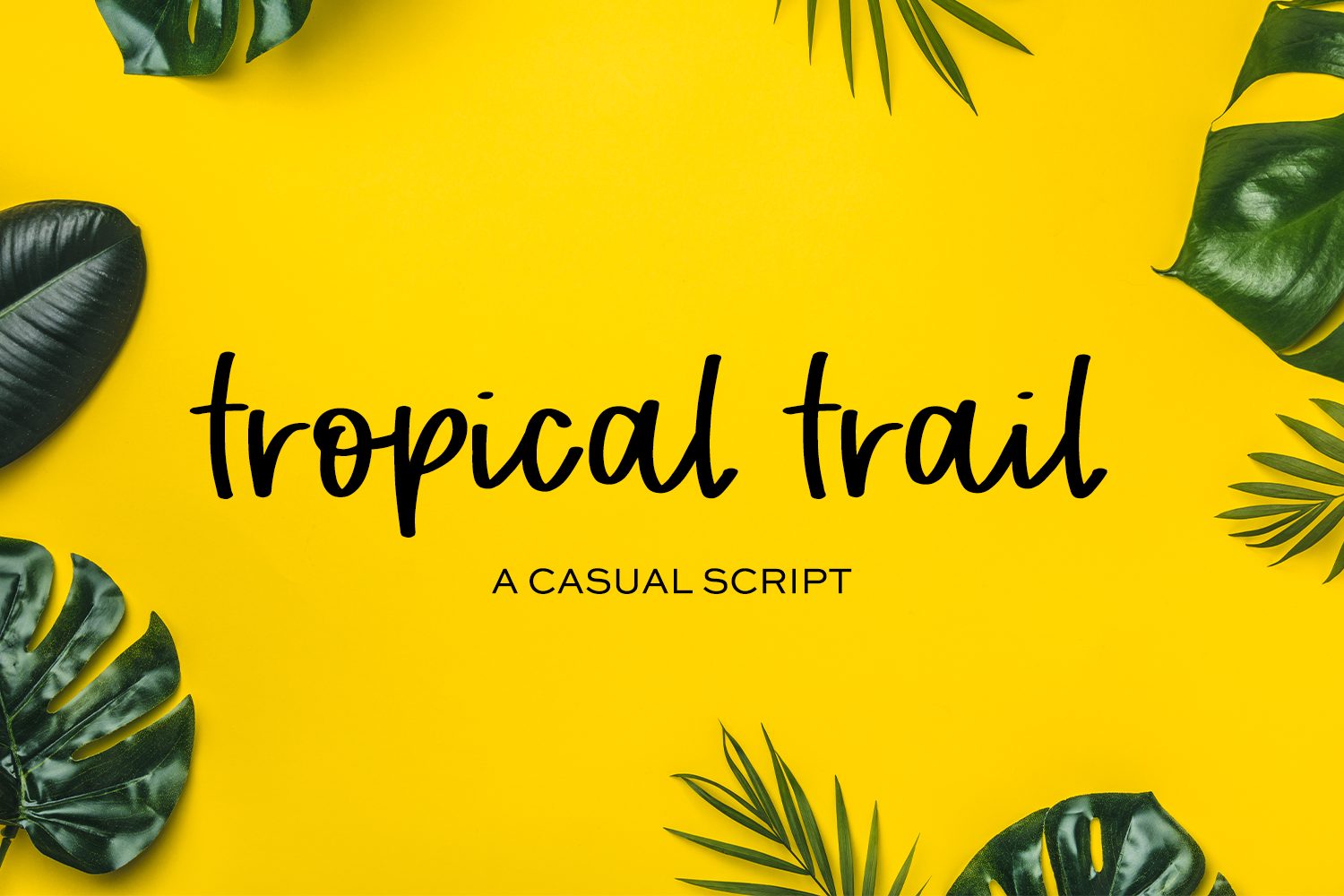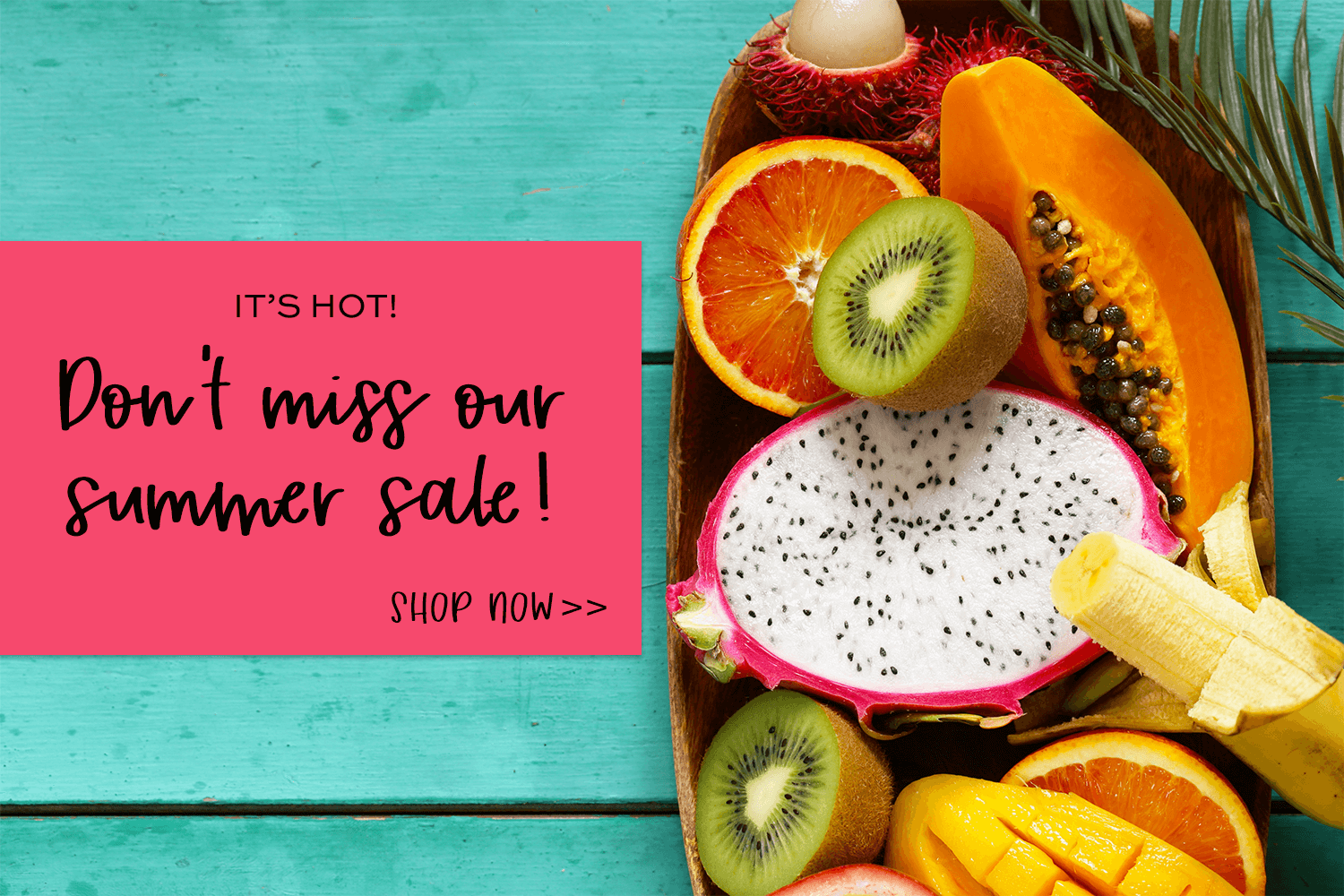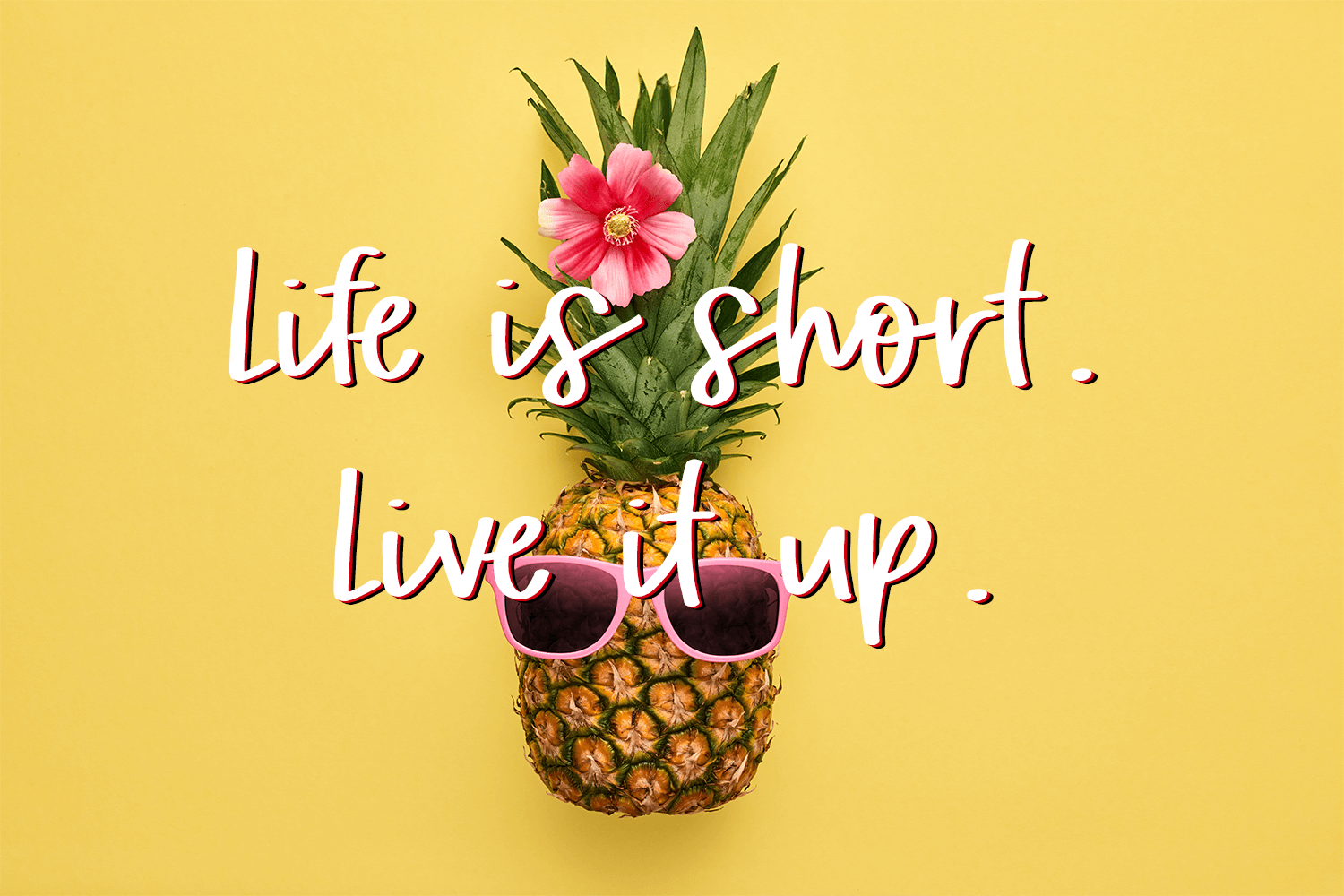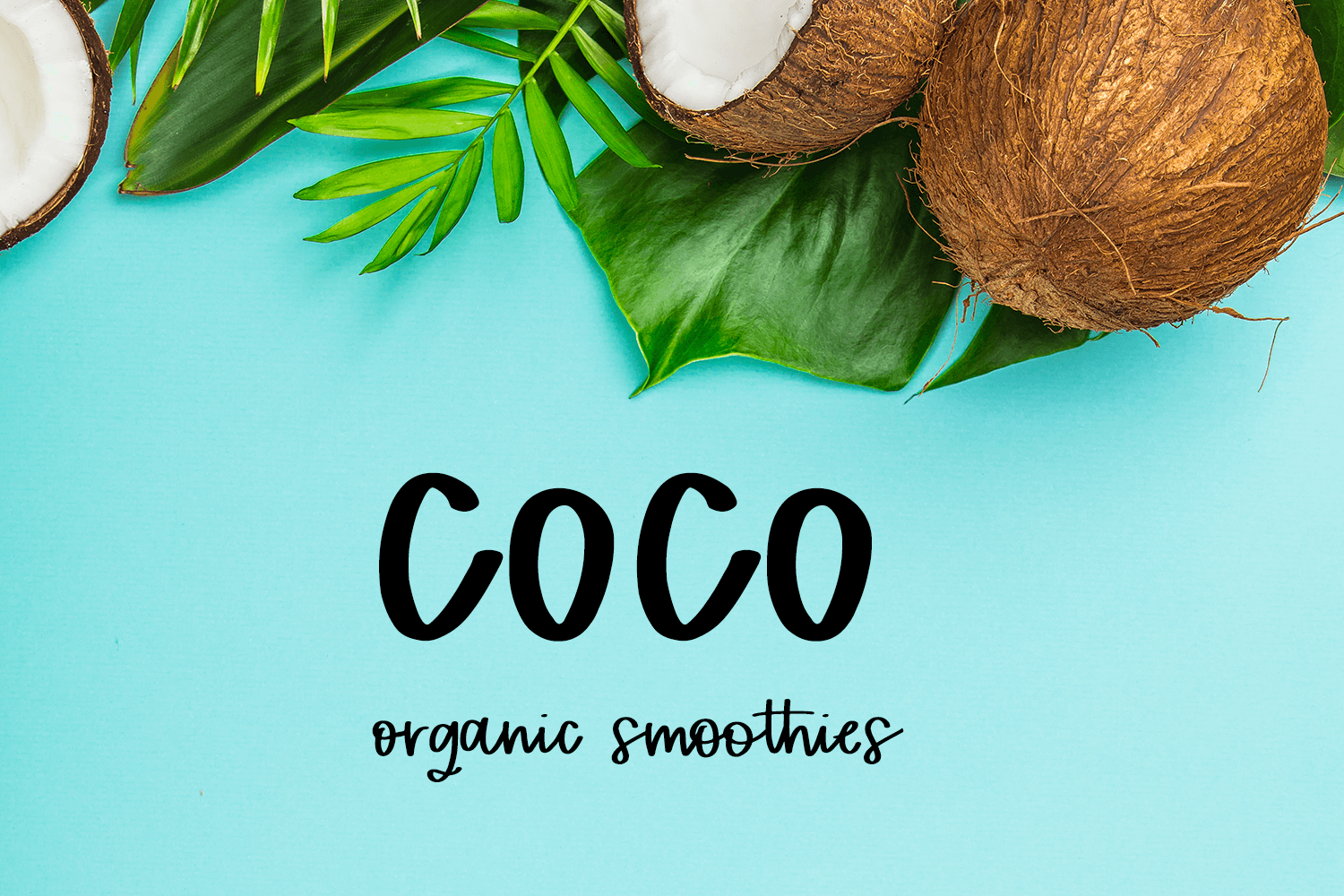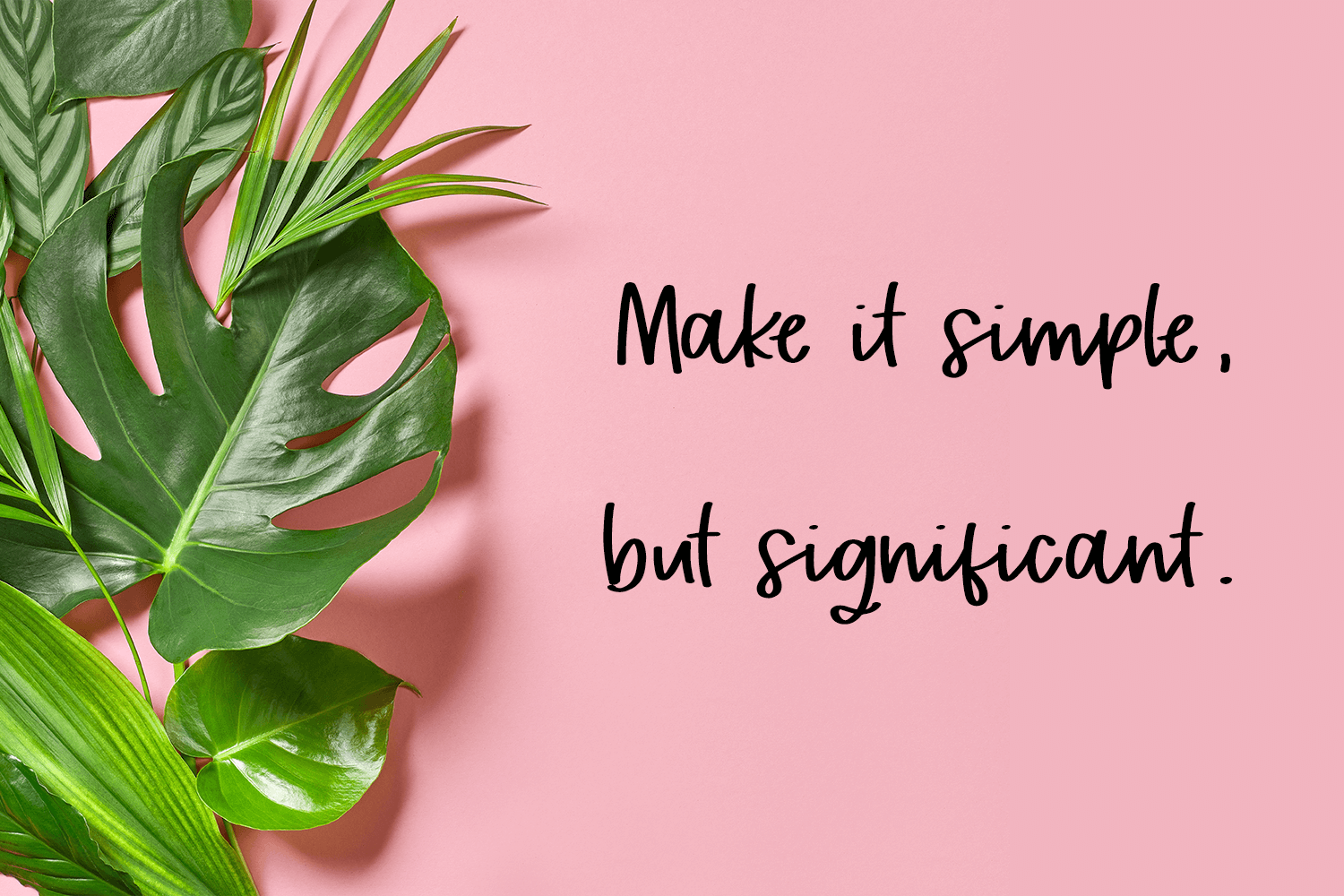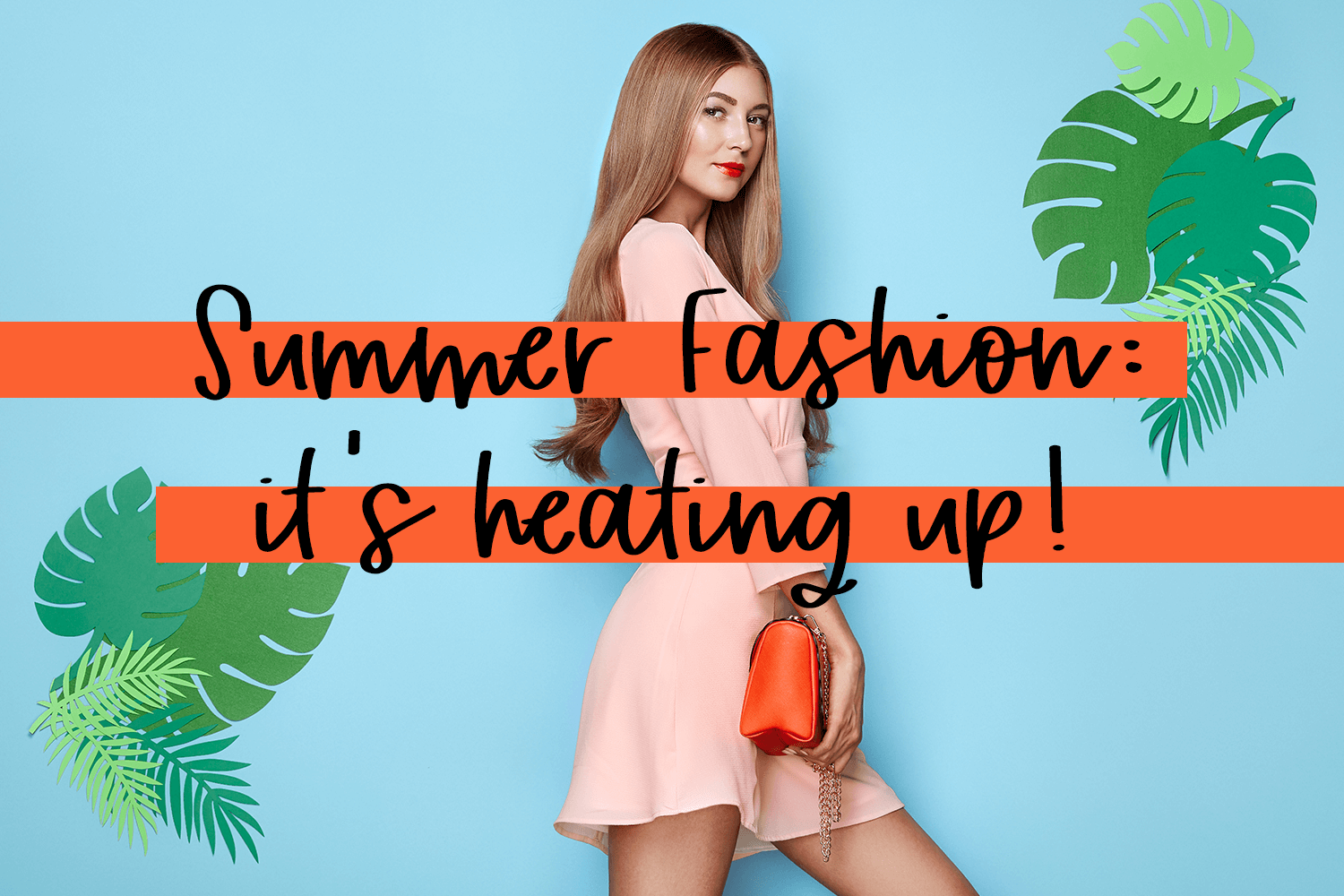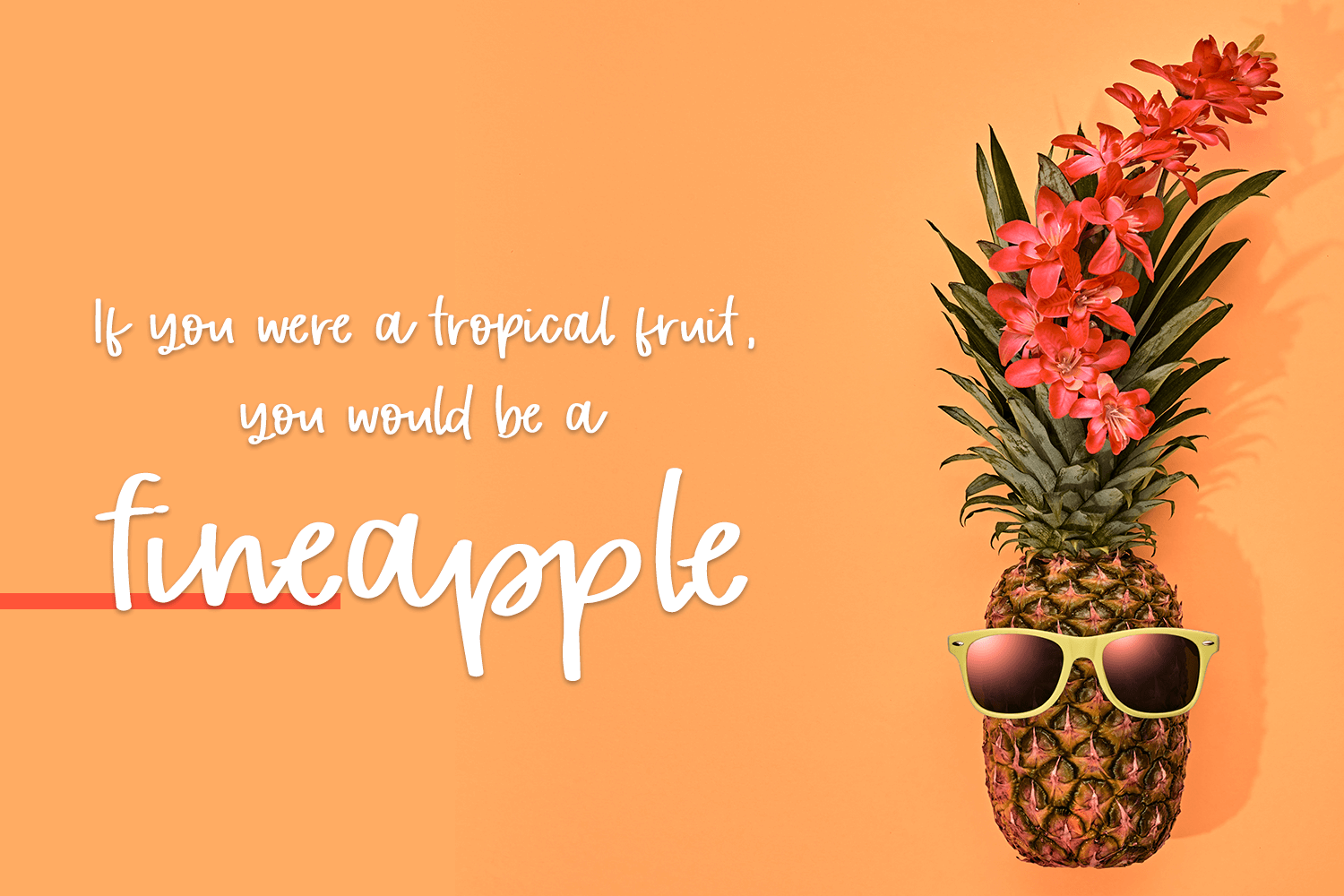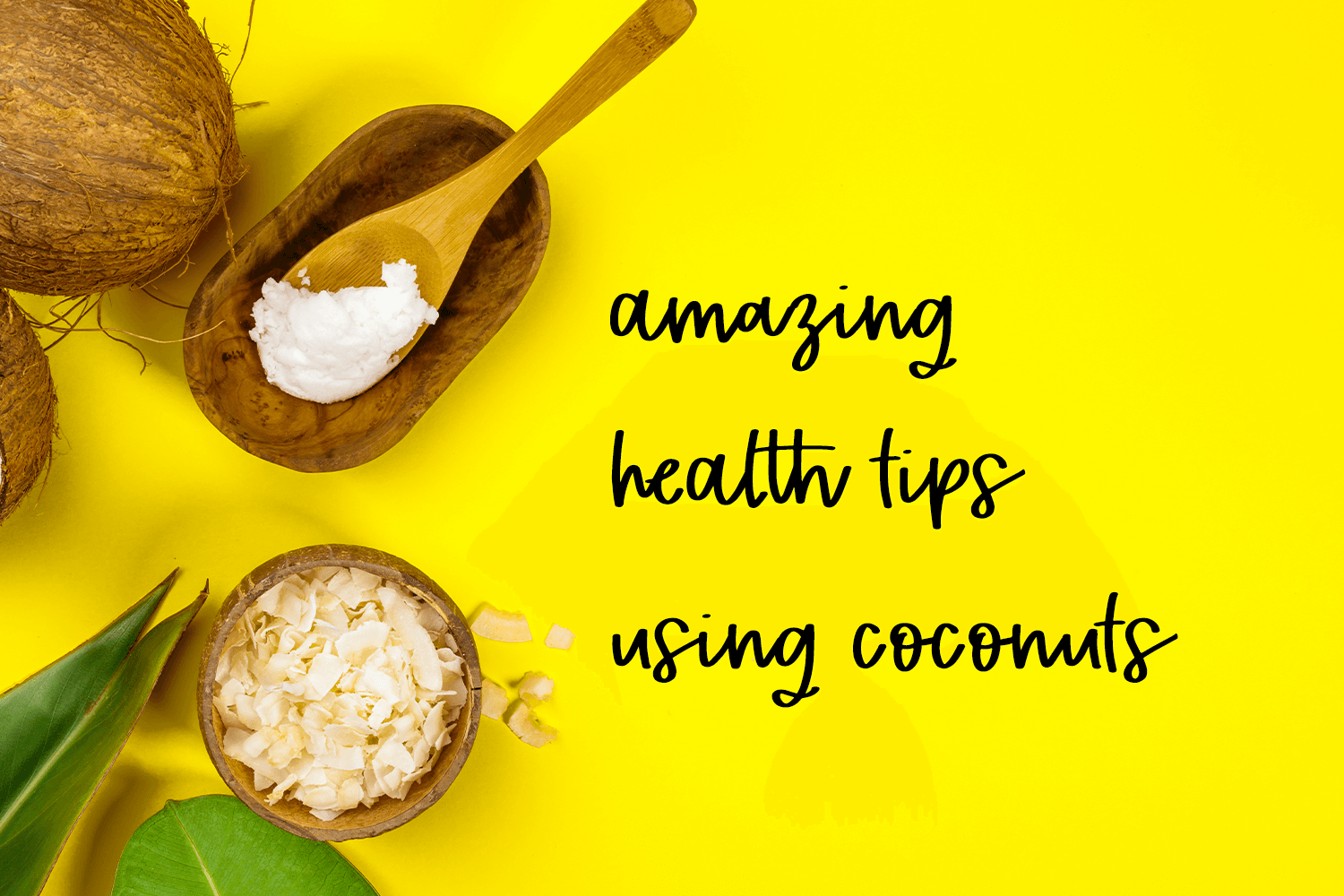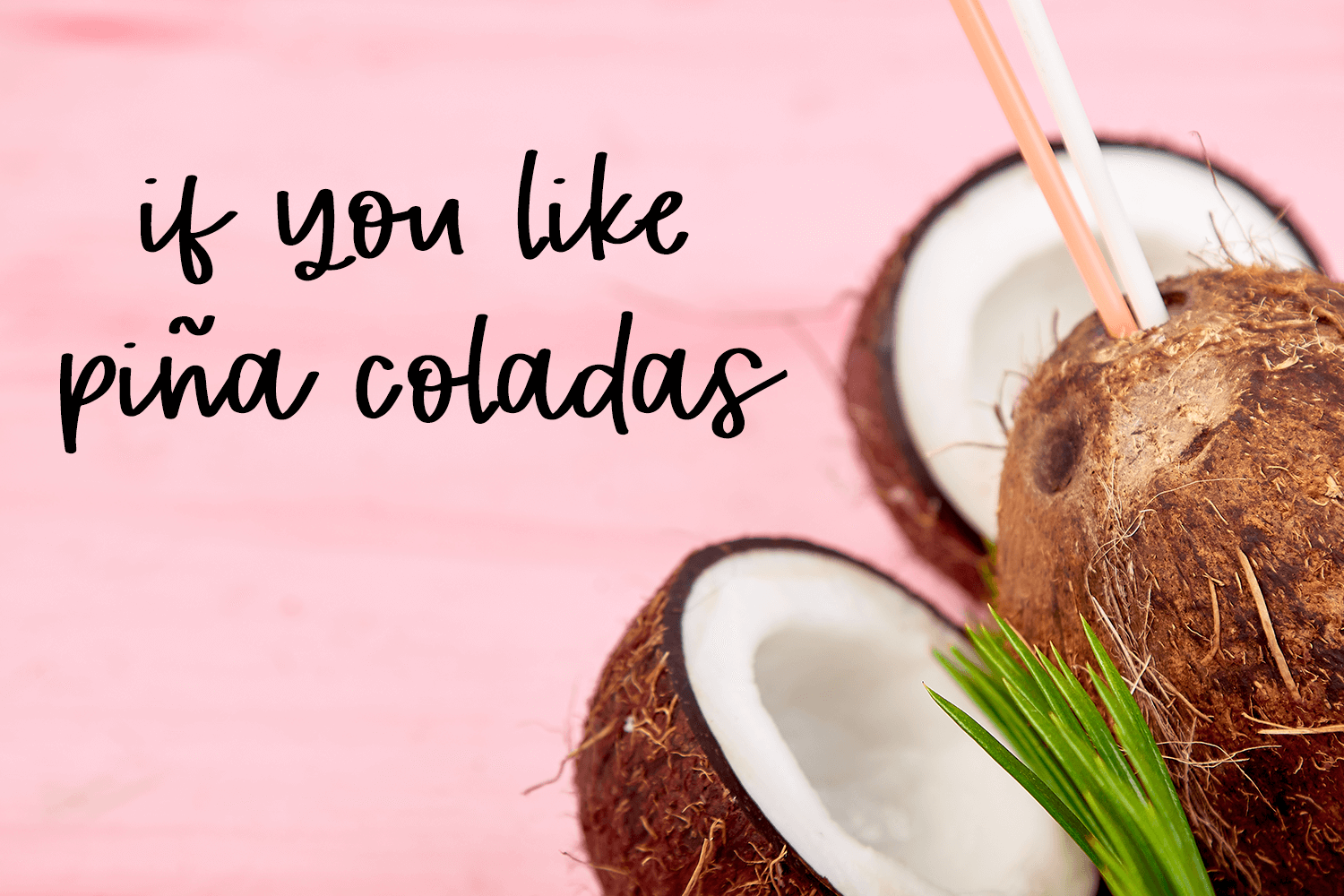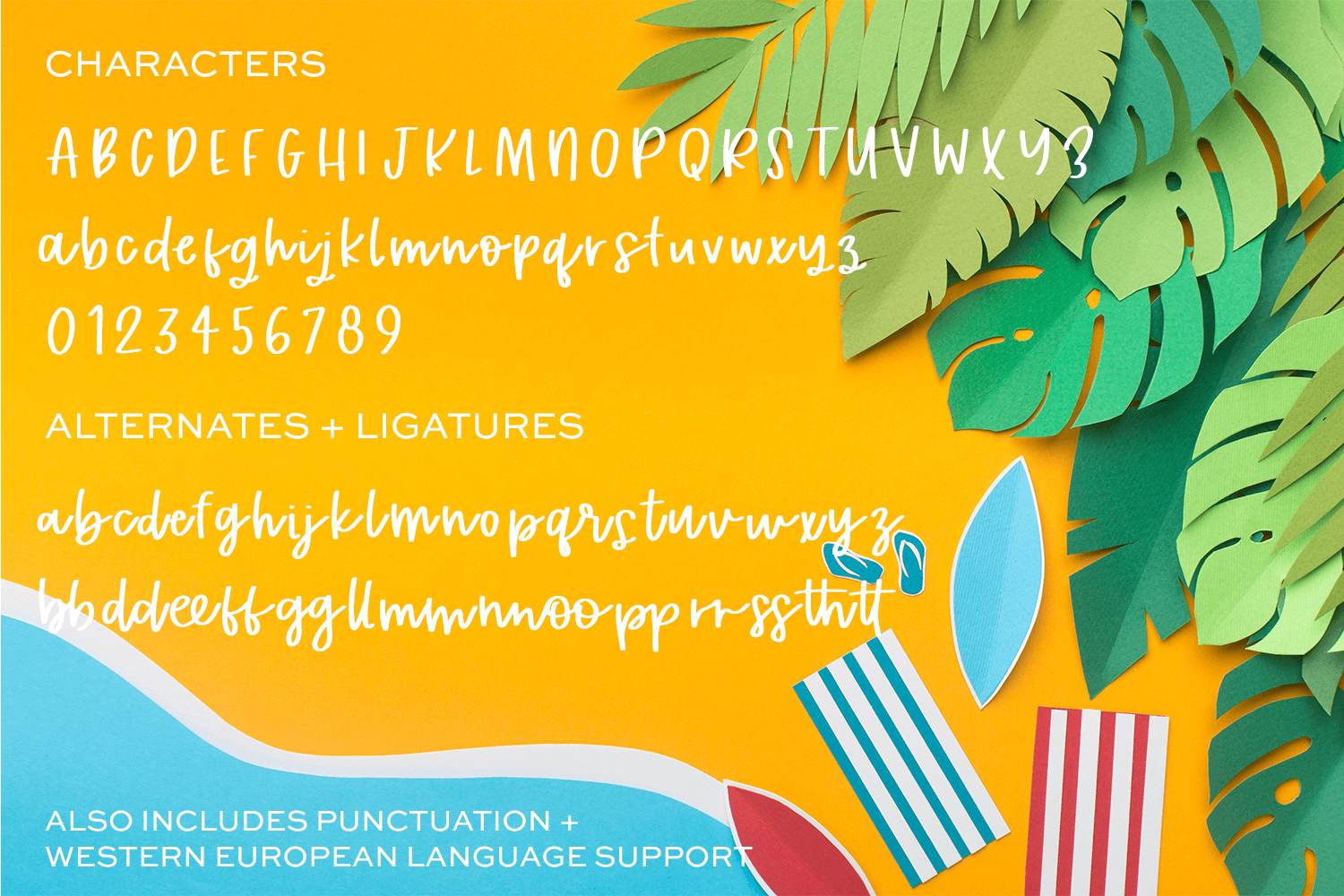
Tropical Trail Marker Font is a casual marker script. It’s not quite dainty like other scripts. This marker font is thick and bold, like writing with a Sharpie, but it remains totally legible. Because of this, you’ll find that Tropical Trail is a great fit for t-shirt designs, or teachers needing to update classroom materials! You’ll also find that Tropical Trail Marker Font is perfect for website headers, and brands with a casual, bold aesthetic. Use for social media, website design, advertisements, and more.
Tropical Trail is an excellent fit for:
– crafting – this font has a super smooth edge, making it an excellent fit for vinyl cutting machines like Silhouette or Cricut
– names or quotes on tumblers & mugs
– creating SVG files for sale
– printable quotes
– shirt design
Tropical Trail Marker Font includes:
– 26 lowercase alternates
– 14 ligature combinations: bb, dd, ee, ff, gg, ll, mm, nn, oo, pp, rr, ss, th, tt